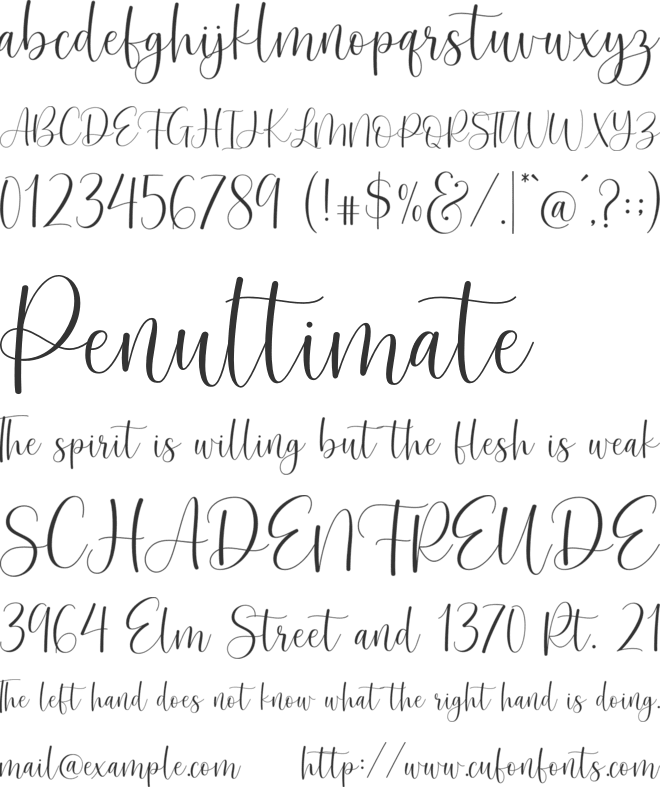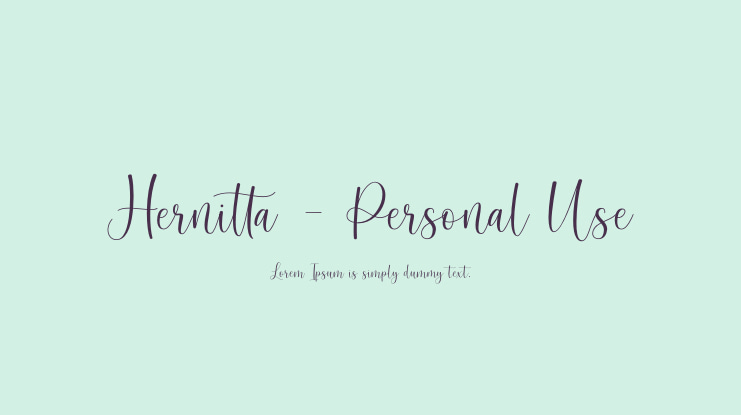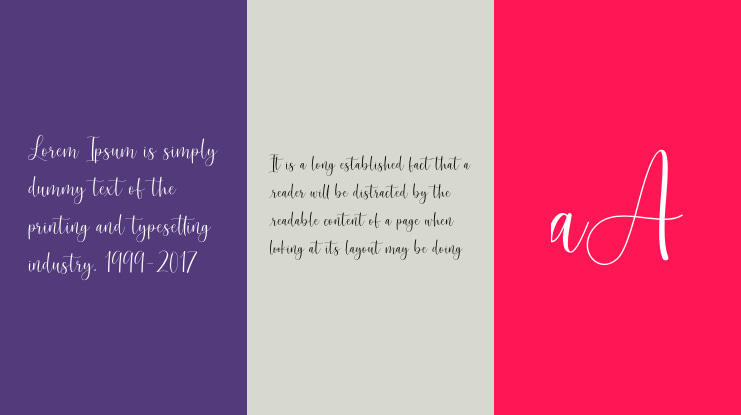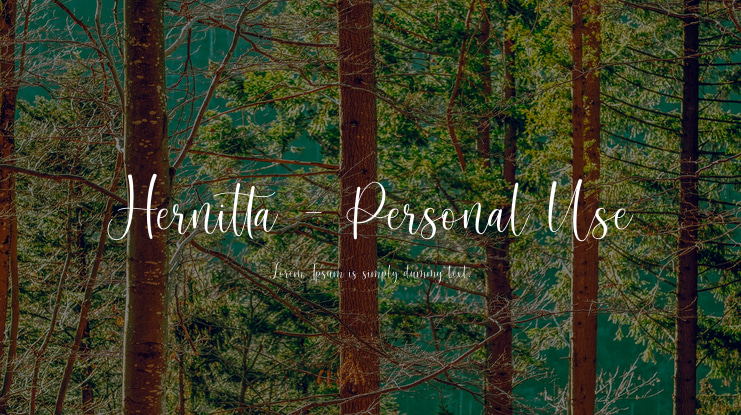
Hernitta - Personal Use Font
Hernitta is a beautiful, modern and new calligraphy font with many alternative styles, ligatures, swashes and it also supports multilingual.